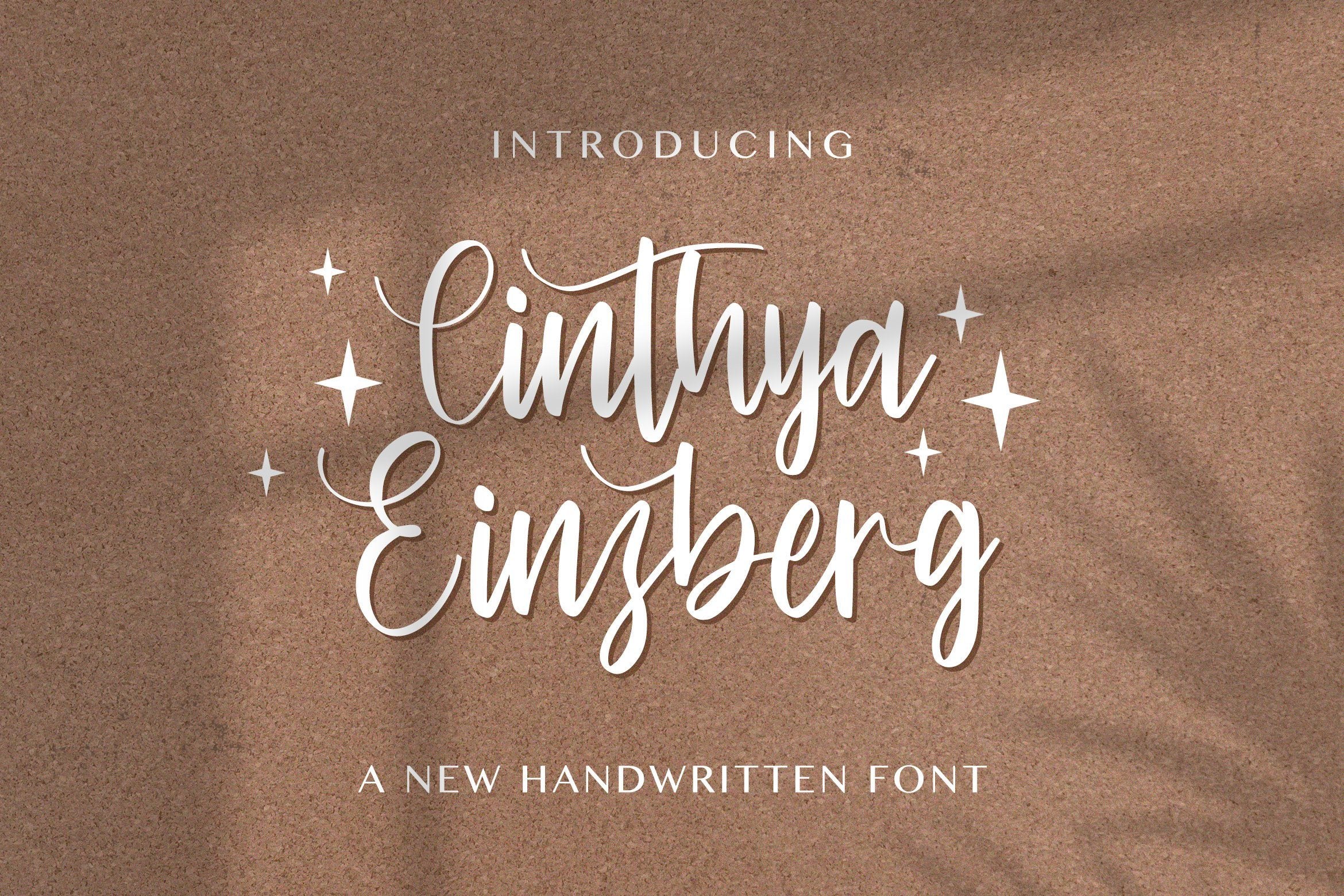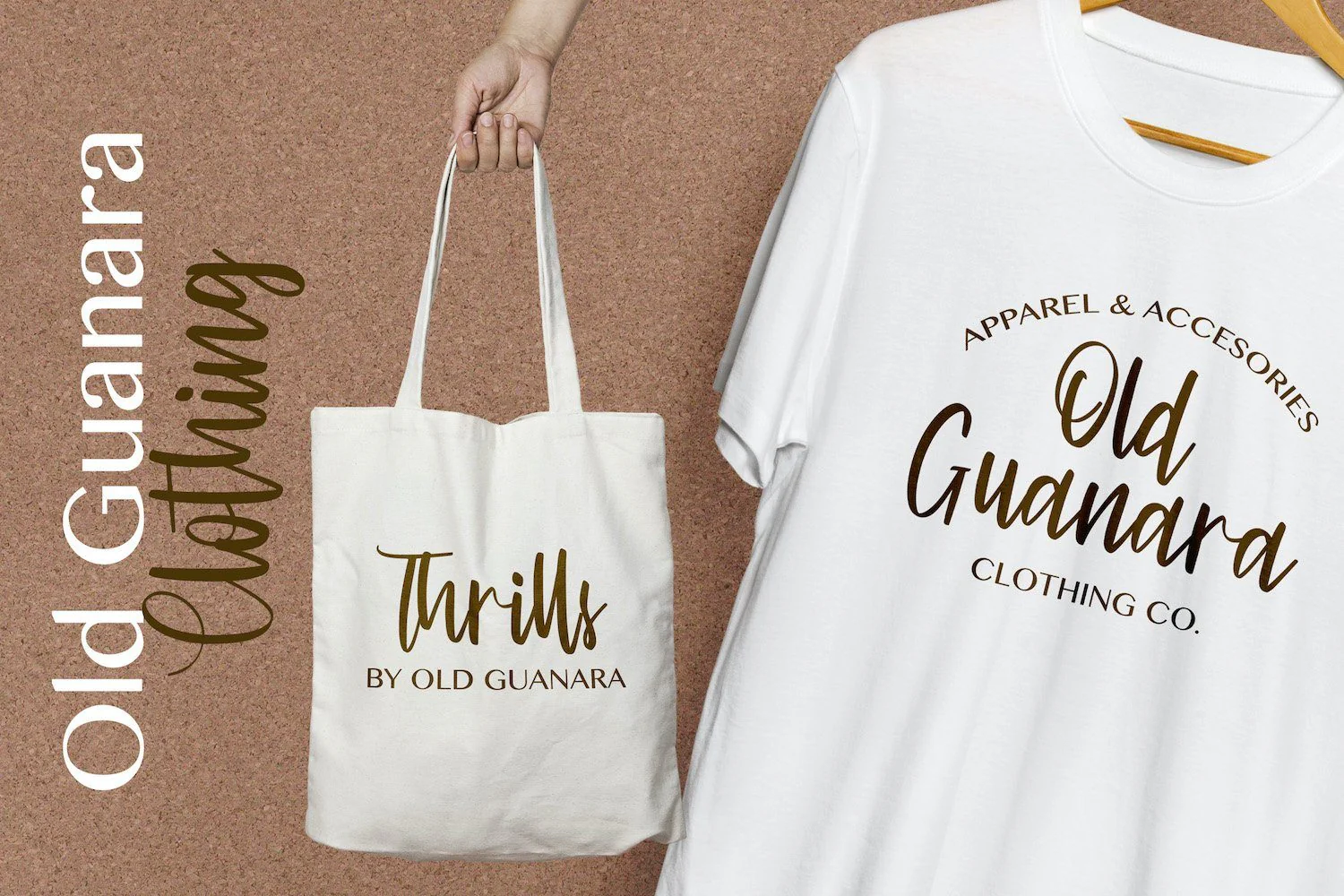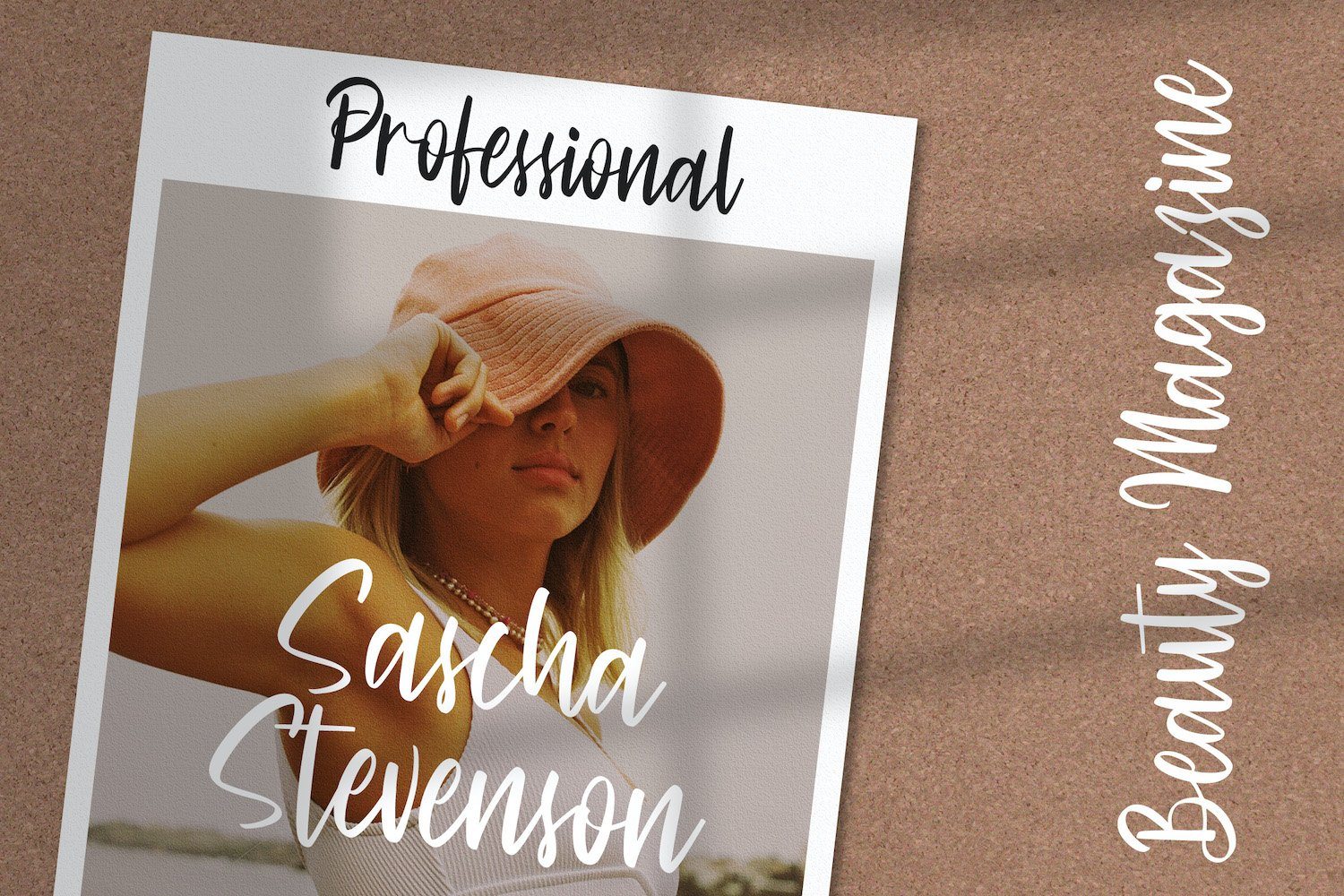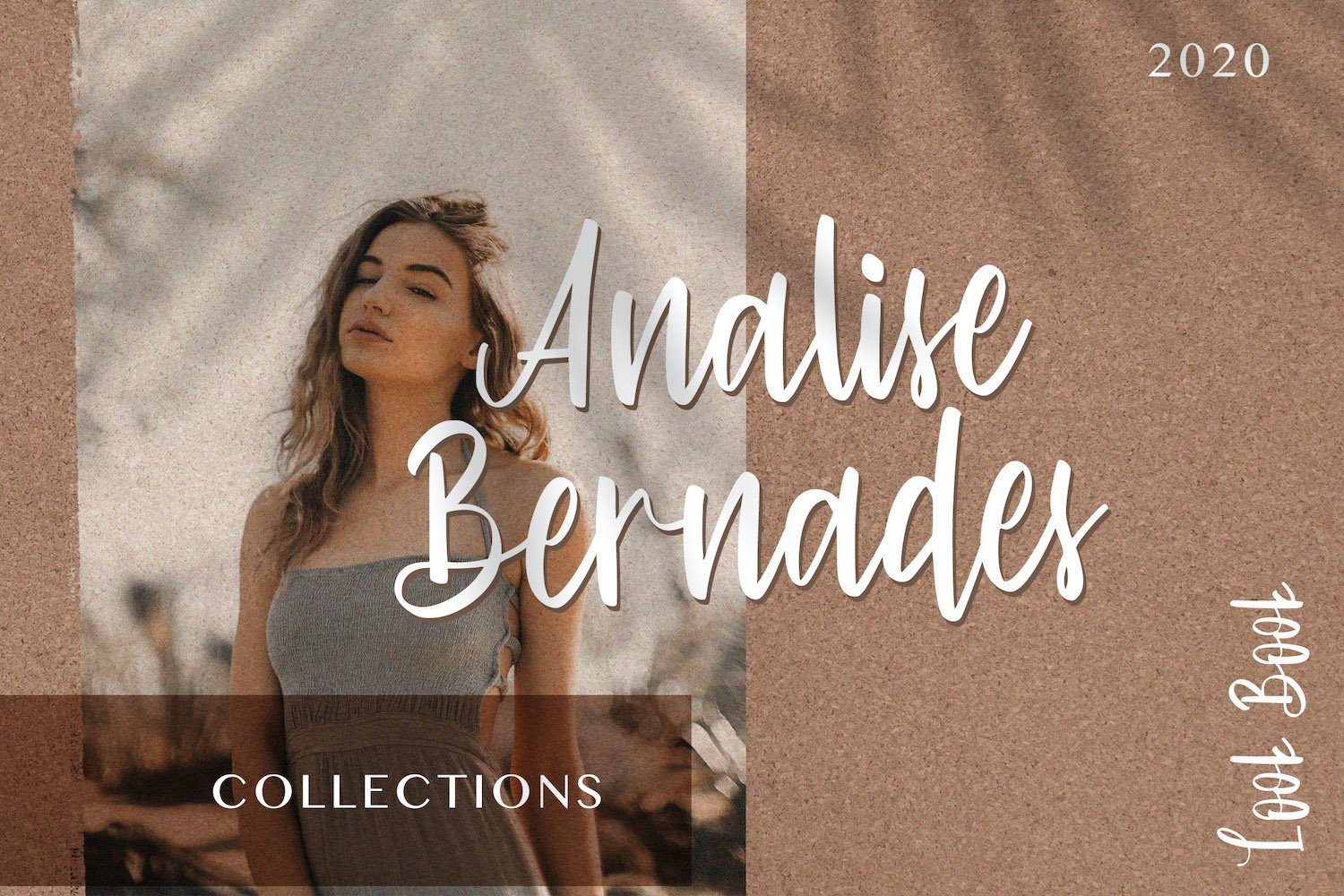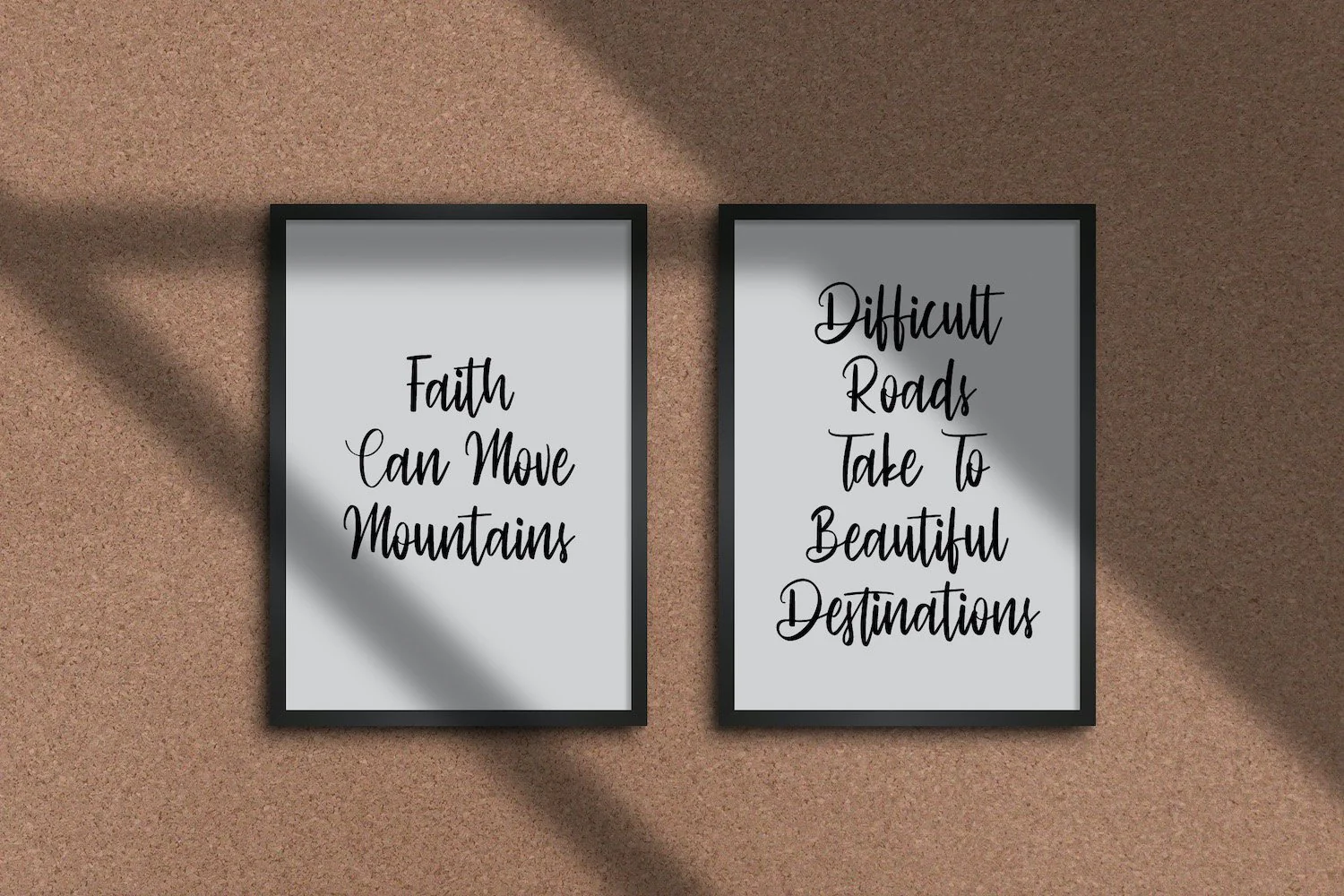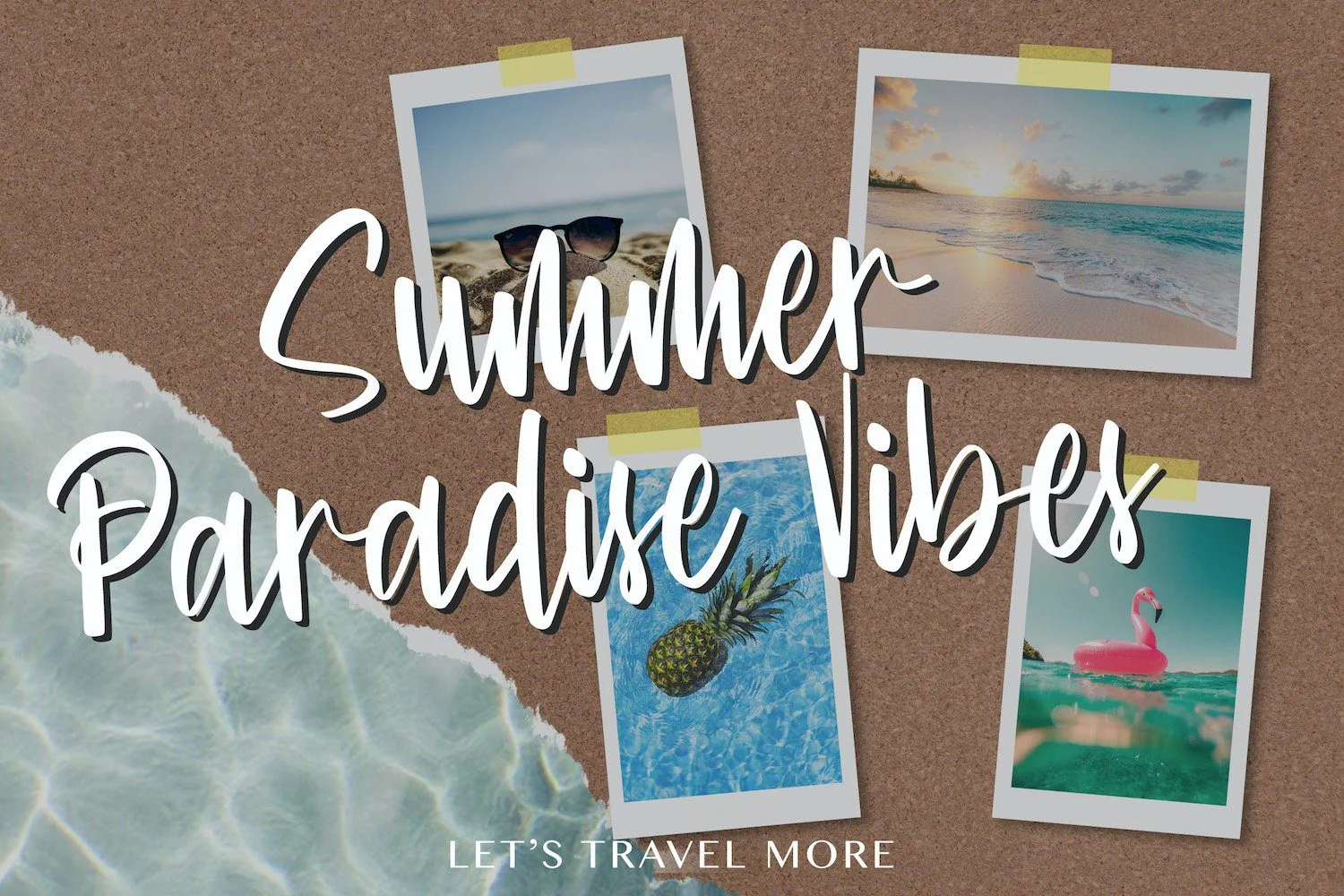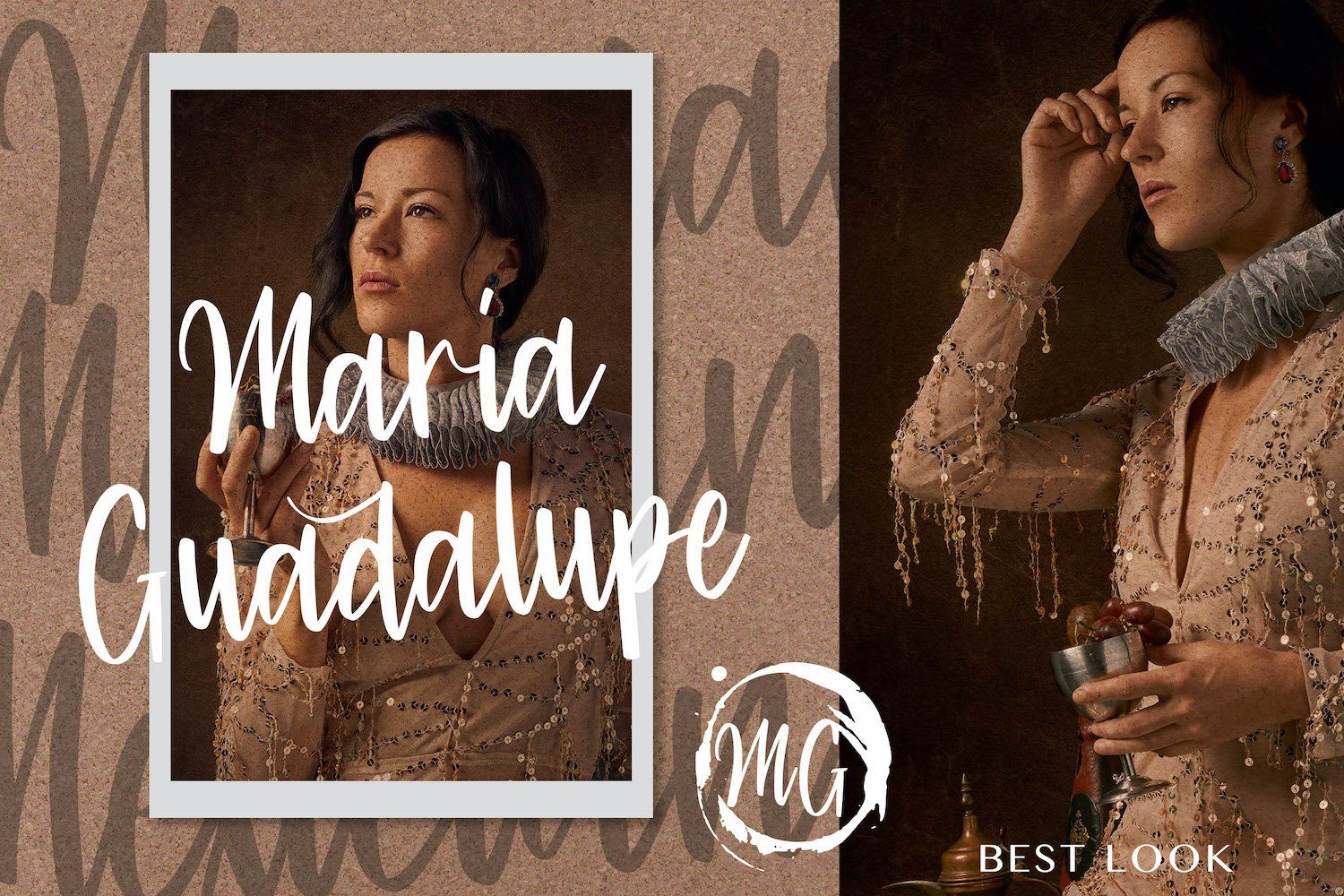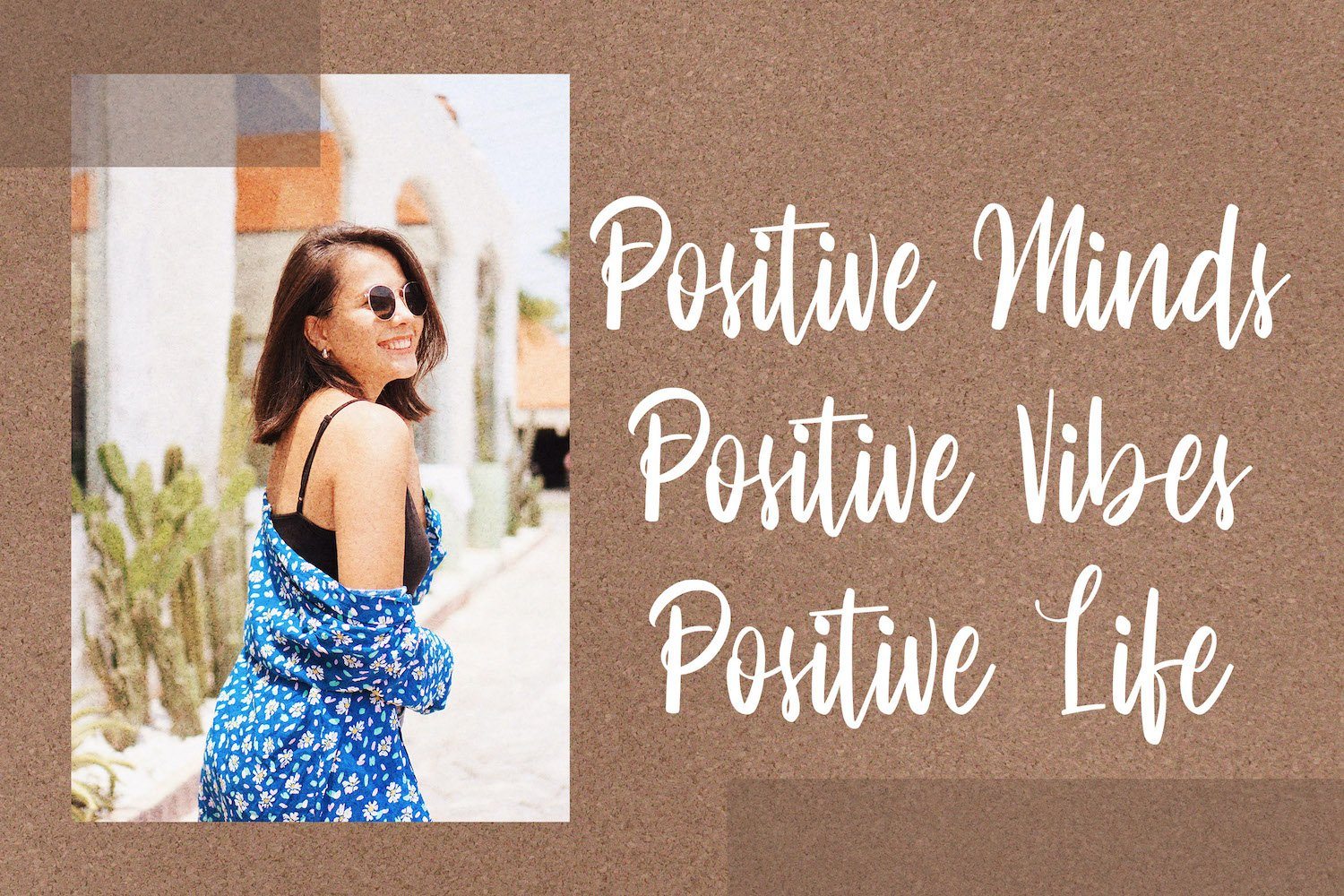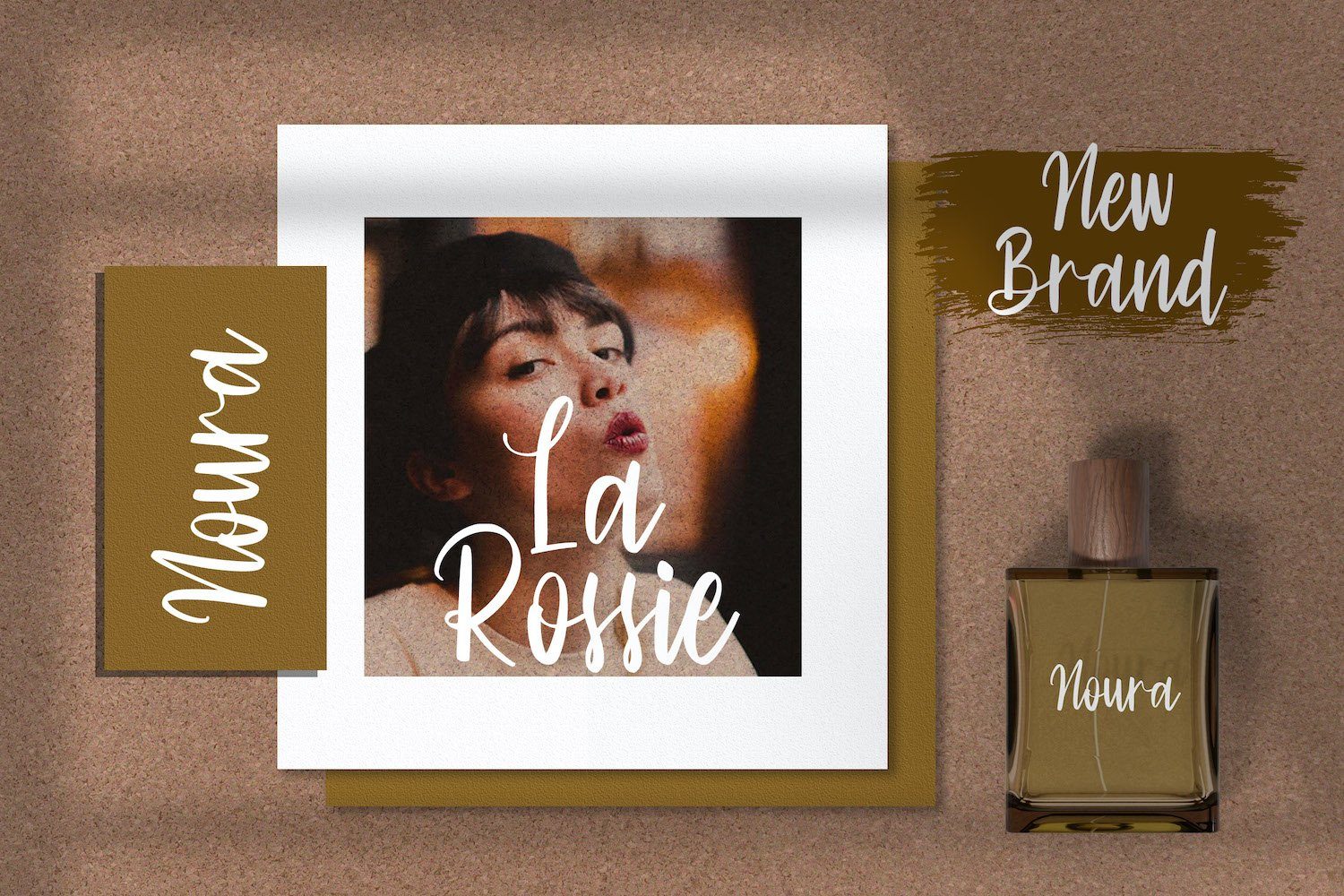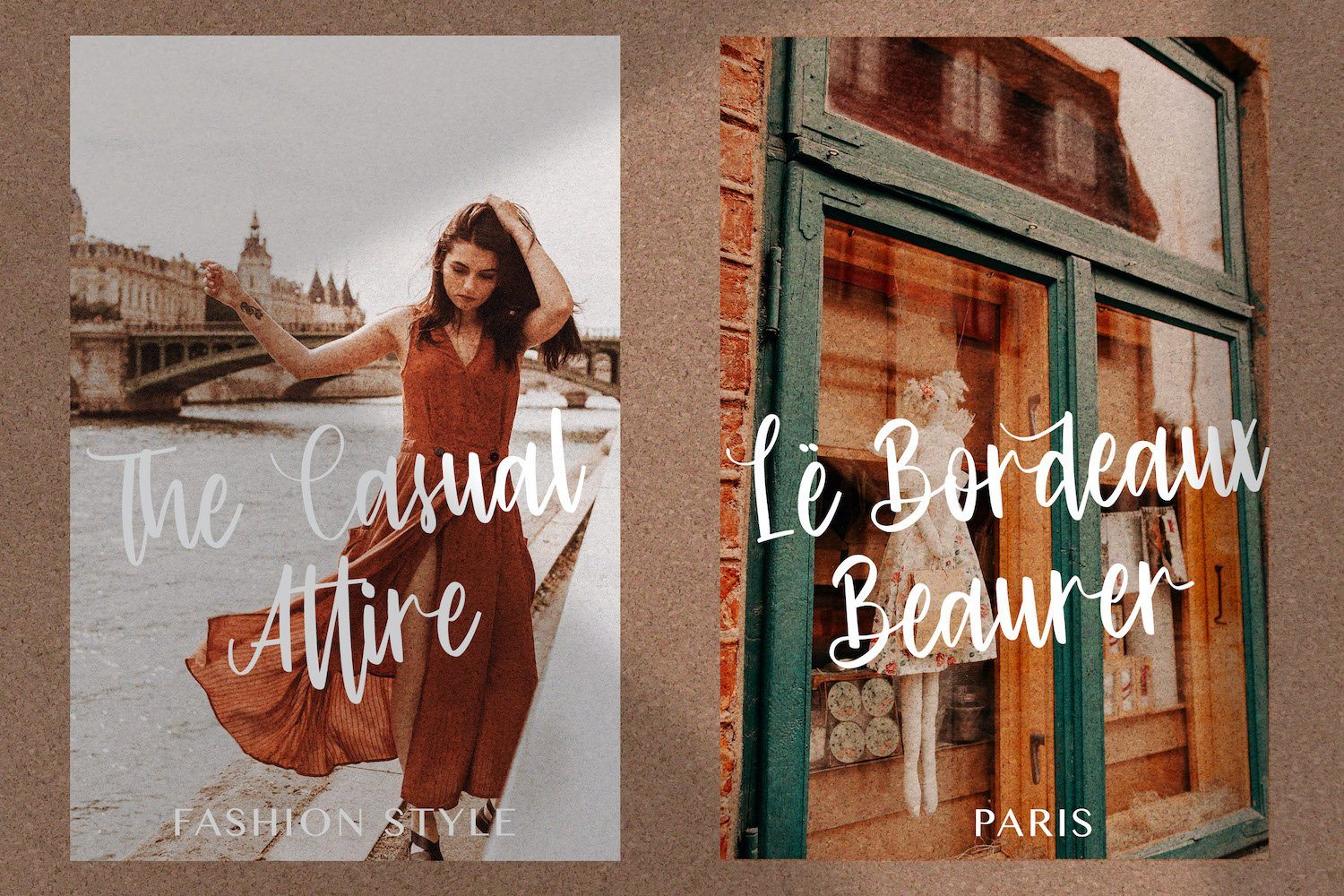
Cinthya Einzberg - Handwritten Font
Introducing Cinthya Einzberg - Handwritten Font
Cinthya Einzberg feels equally charming and elegant. It looks stunning on wedding invitations, thank you cards, quotes, greeting cards, logos, business cards and every other design which needs a handwritten touch.
Introducing Cinthya Einzberg - Handwritten Font
Cinthya Einzberg feels equally charming and elegant. It looks stunning on wedding invitations, thank you cards, quotes, greeting cards, logos, business cards and every other design which needs a handwritten touch.